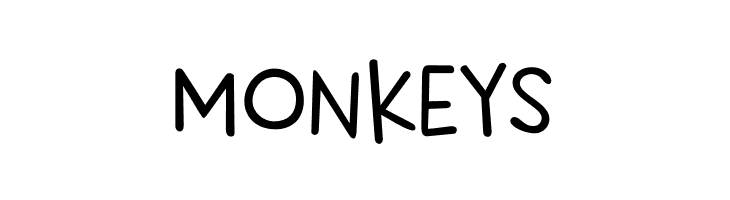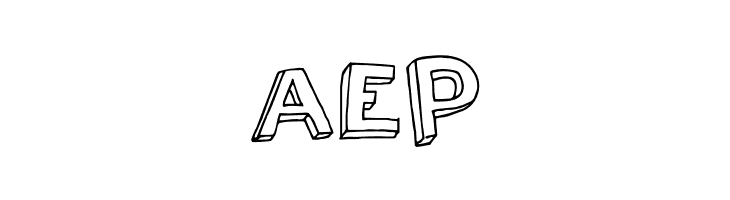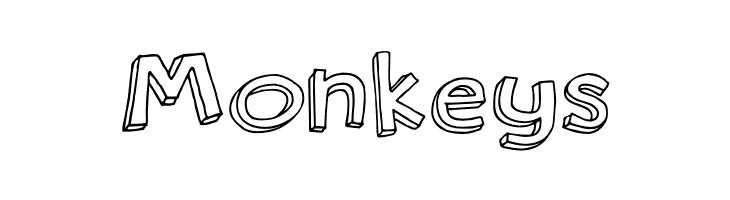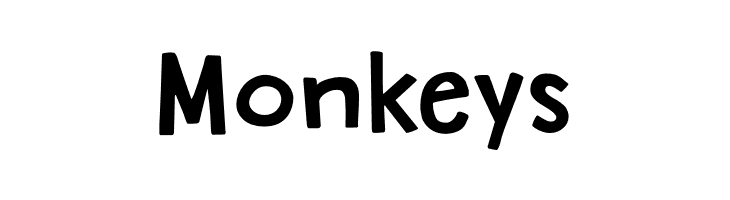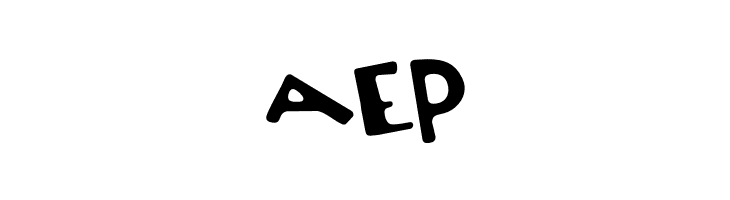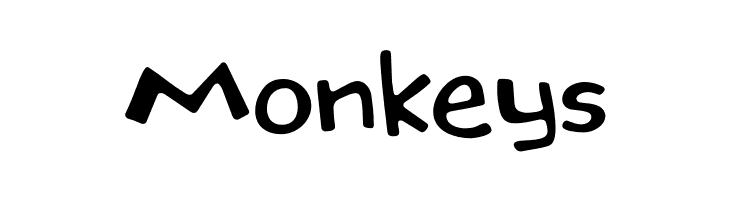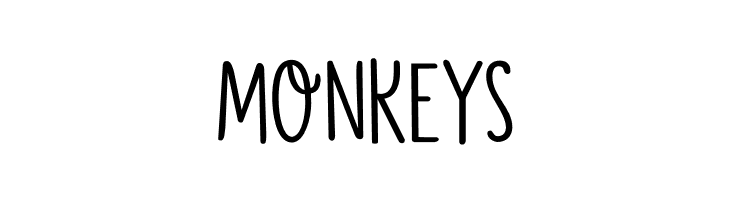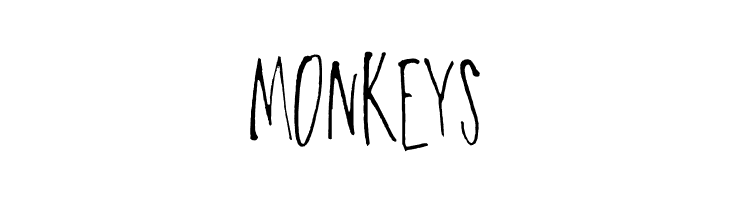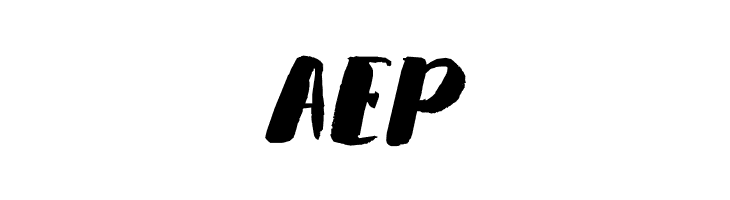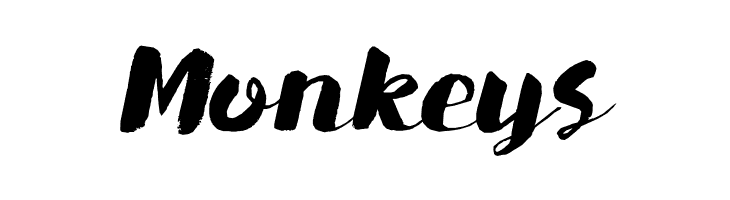
( Fonts by Hanoded )
A playful, hand-drawn font with tall, narrow characters and whimsical symbols.
( Fonts by Hanoded )
A playful, bold, and rounded font with a hand-drawn, cartoonish style.
( Fonts by Hanoded )
A whimsical, hand-drawn font with elongated, irregular strokes and playful elements.
( Fonts by Hanoded )
A playful, hand-drawn font with bold outlines and a whimsical style.
( Fonts by Hanoded )
A bold, brush-style font with playful cat illustrations.
( Fonts by Hanoded )
A playful, hand-drawn font with bold, rounded characters and a whimsical style.